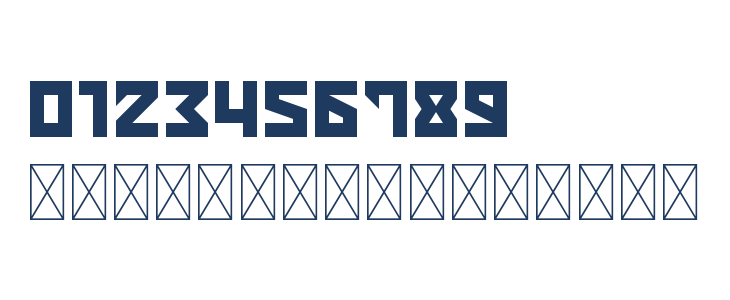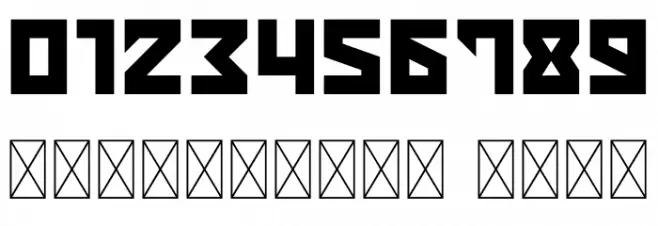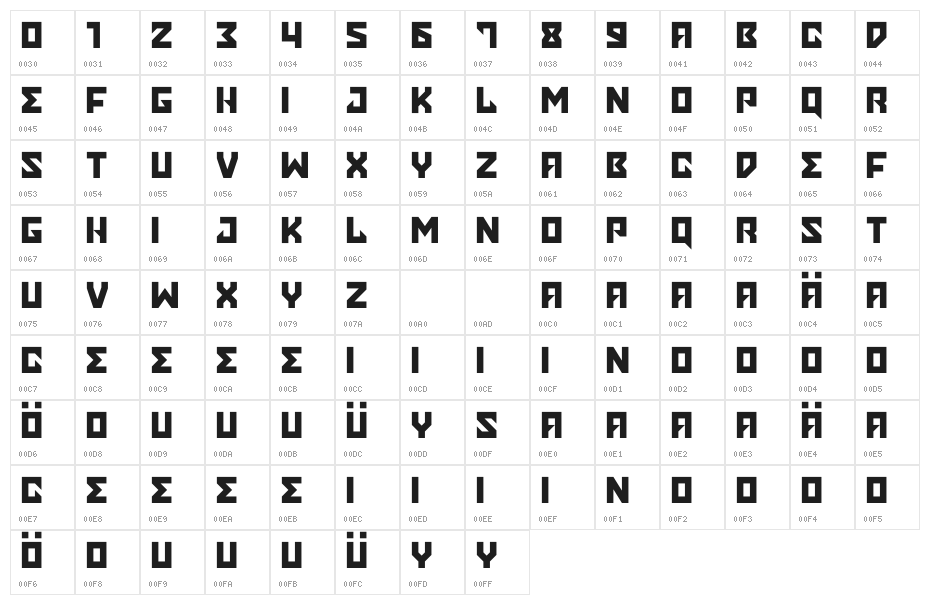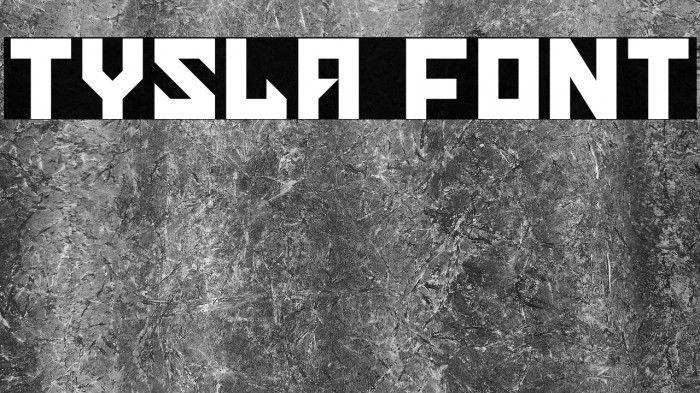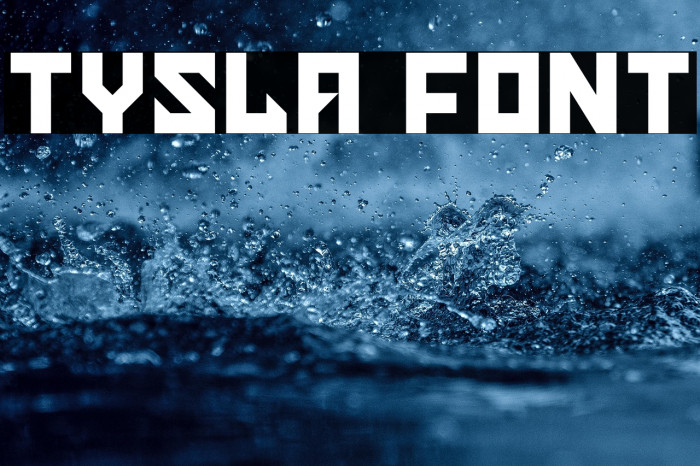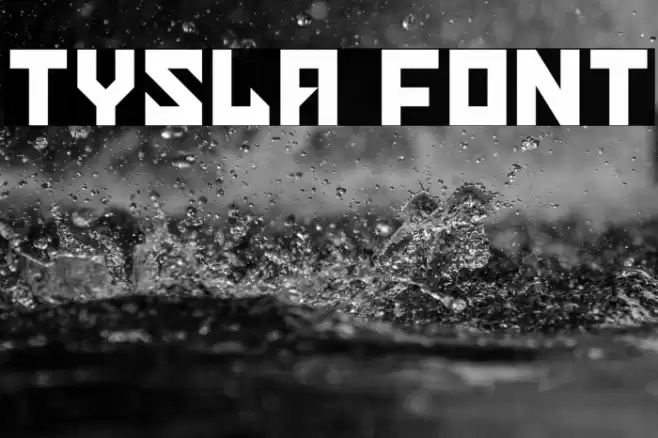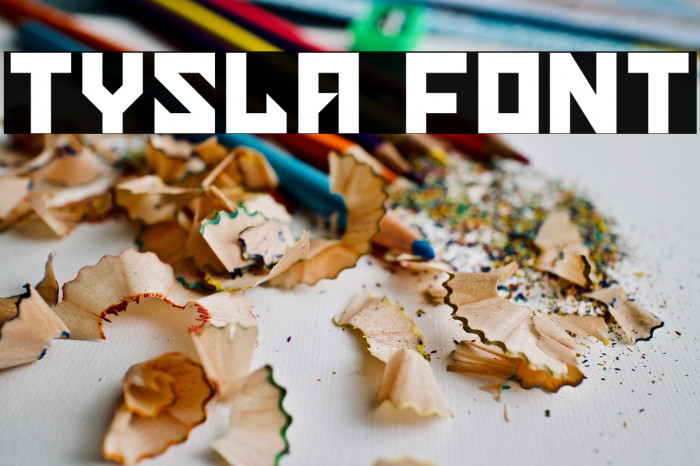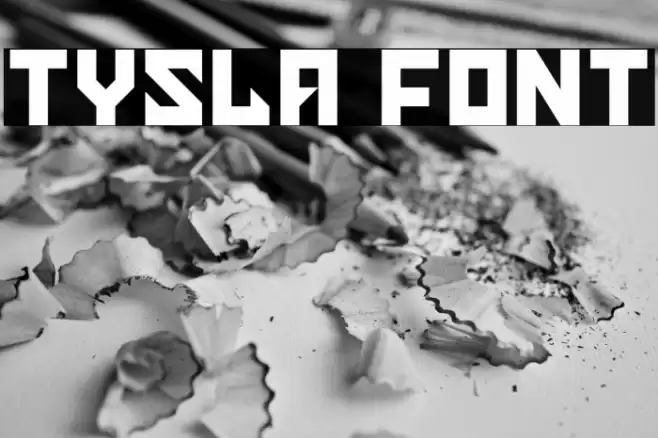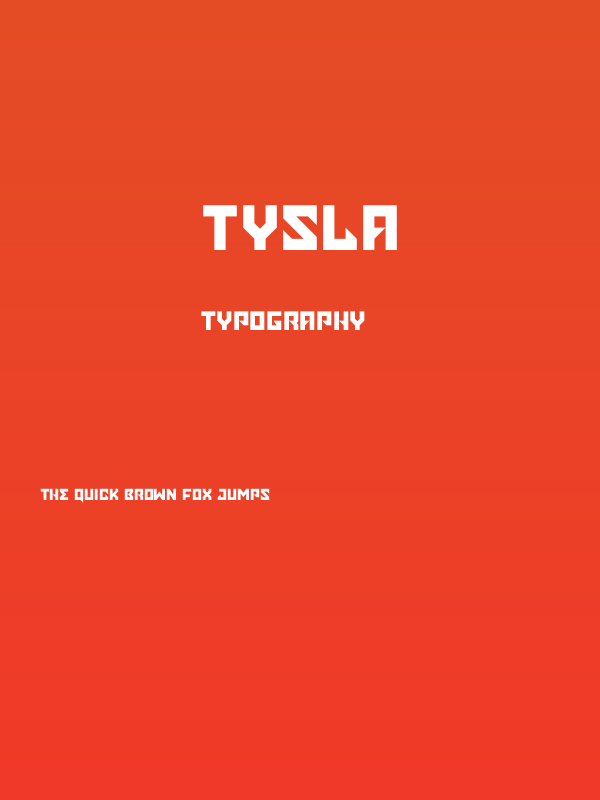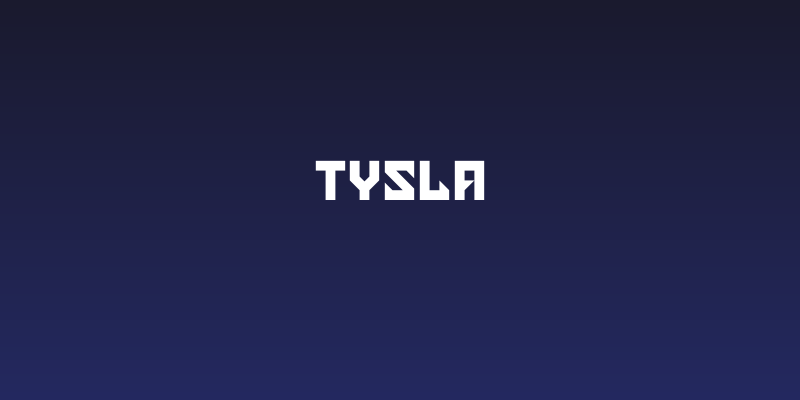
Tysla Font
Tysla Description
This font features a bold and geometric design with sharp angles and a futuristic aesthetic. The uppercase letters are characterized by their blocky and angular shapes, giving them a strong and impactful presence. The numbers follow the same design principles, ensuring consistency across all characters. The font's unique style makes it ideal for projects that require a modern and edgy look. Its boldness and distinctiveness make it stand out, while the geometric forms add a sense of precision and modernity.
| Proposed Projects | Ideal for branding, posters, video game titles, and tech-related projects. |